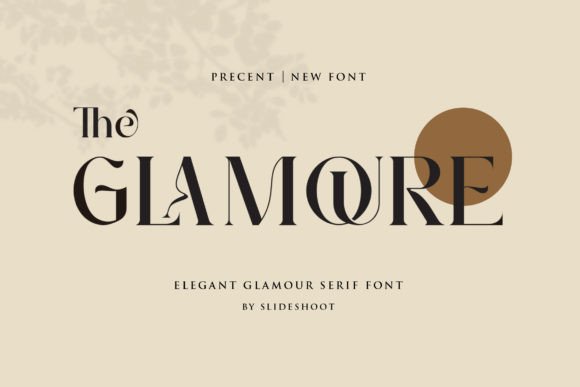
Introducing The Glamoure Font, a serif font exuding sophistication and elegance, crafted to elevate any project to the realm of the extraordinary. Step into a world of captivating designs with The Glamoure Font, a masterpiece brought to you by the skilled artisans at Slide Shoot.
Prepare to be mesmerized by the seamless harmony of The Glamoure Font, where each letter dances with a subtle yet captivating serif, exuding an aura of timeless grace. Gracefully balancing form and function, The Glamoure Font seamlessly adapts to any design endeavor, transforming your creations into works of art.
Unleash your inner fashionista with The Glamoure Font, a perfect match for any project seeking a touch of elegance and style. Its stylish alternations and ligatures intertwine like threads on a loom, weaving a tapestry of visual delight.
Experience the effortless charm of The Glamoure Font, PUA encoded for your convenience, allowing you to effortlessly access a world of glyphs and swashes that add depth and dimension to your creations. Let The Glamoure Font ignite your imagination and captivate your audience with its timeless allure.